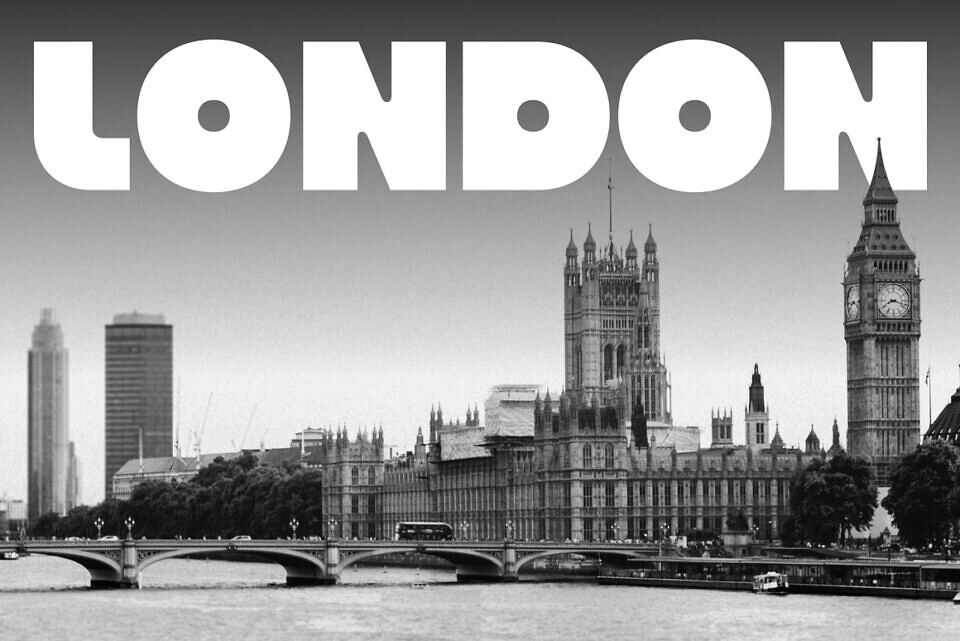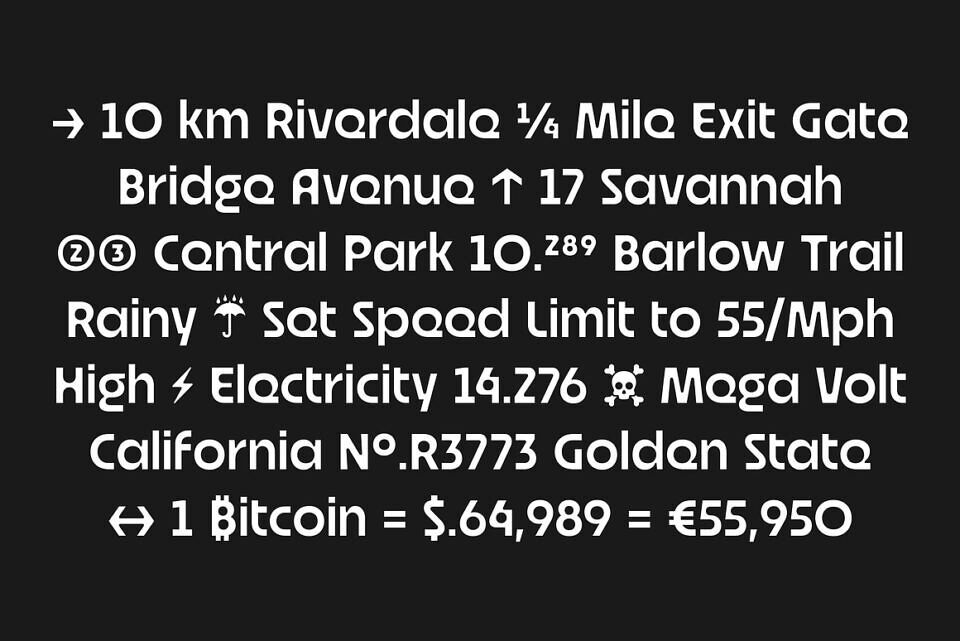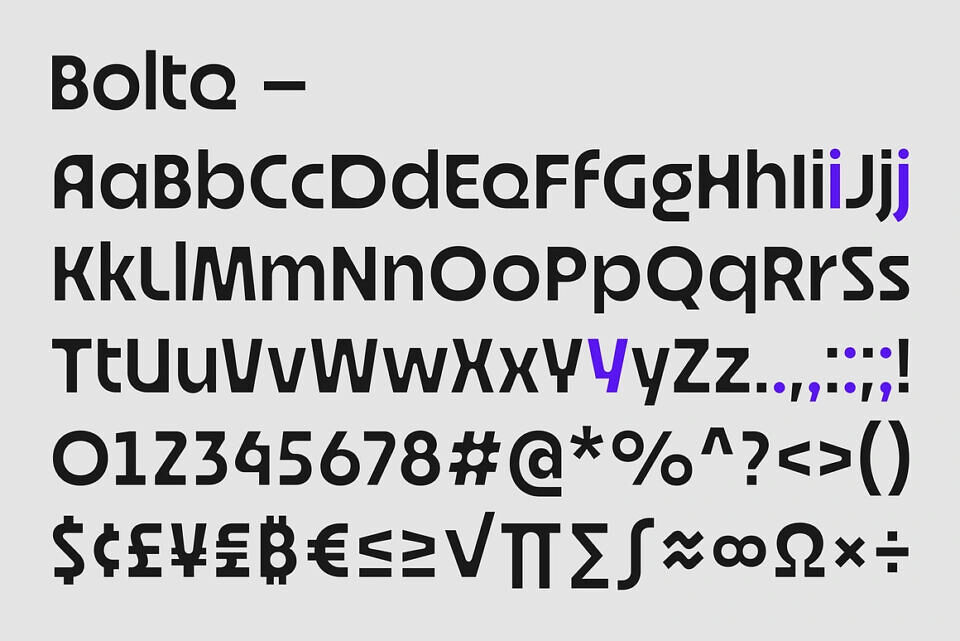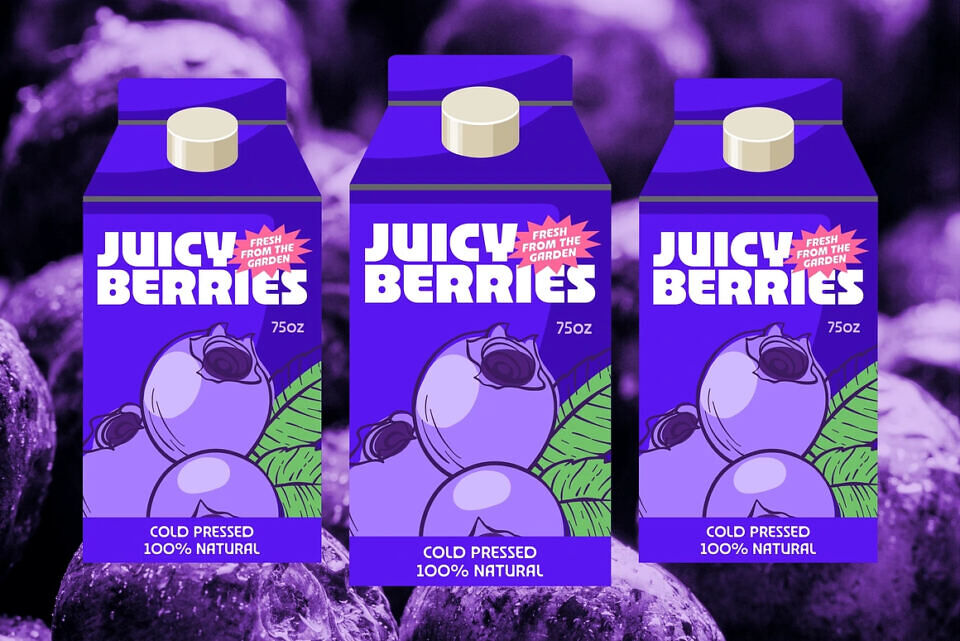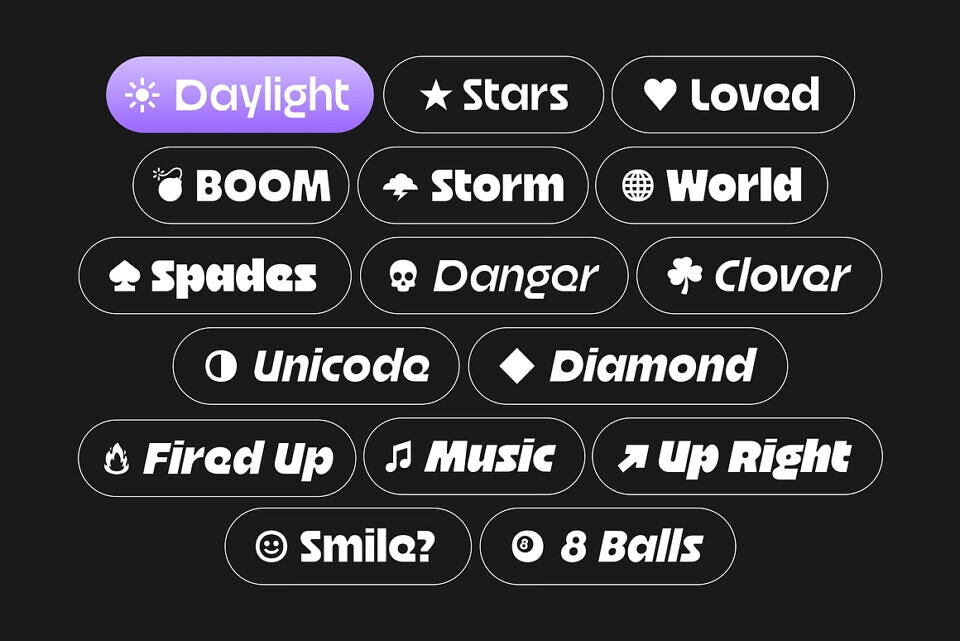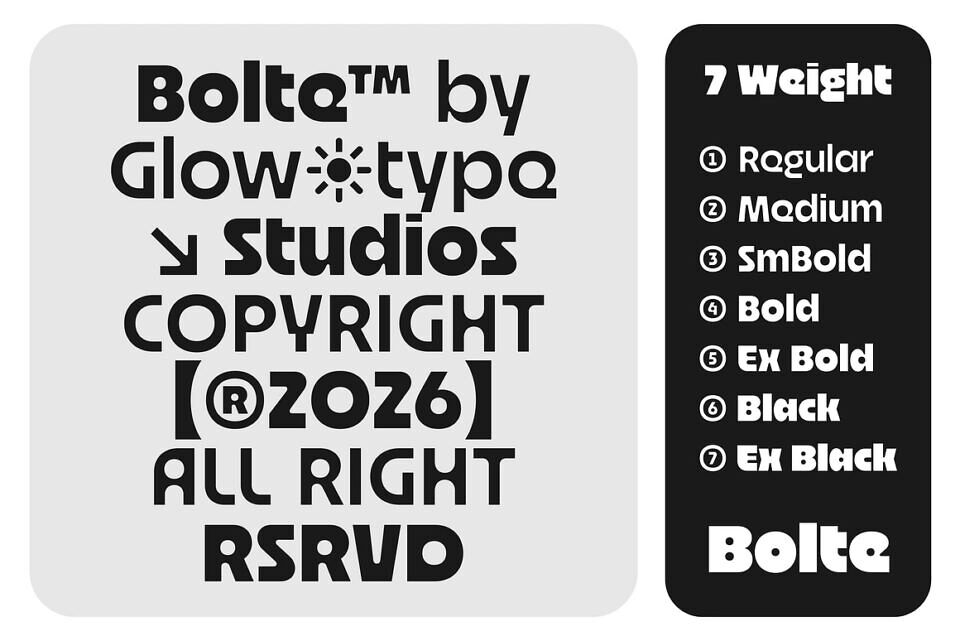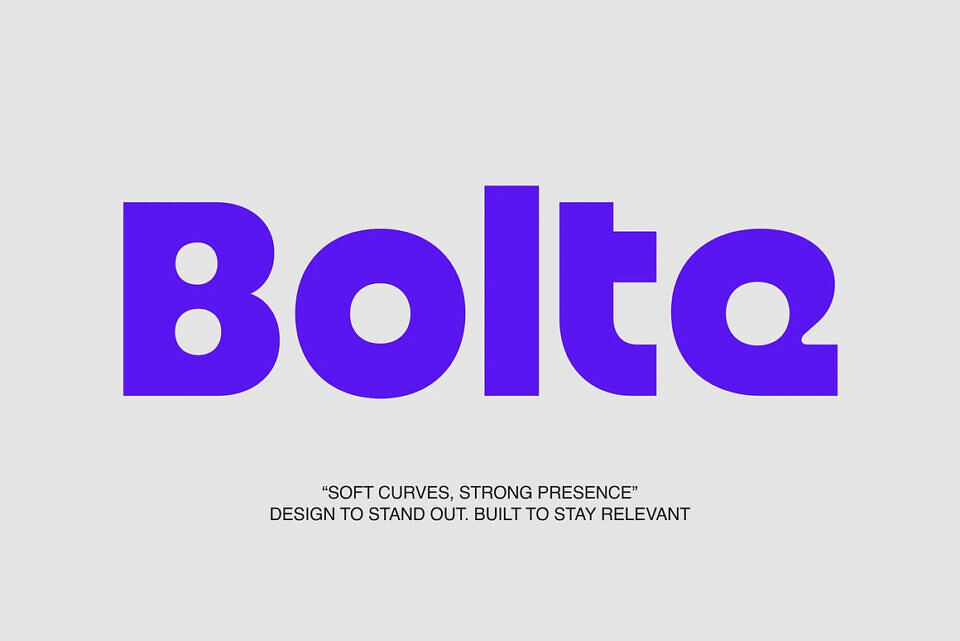
Bolte Font Family
Bolte is a rounded display sans built around weight, warmth, and clarity. Its generous proportions, soft terminals, and confident rhythm create a voice that feels approachable without sacrificing presence. Drawing inspiration from the practicality of grotesque sans-serifs and the friendliness of contemporary rounded forms, Bolte balances structure and personality in equal measure.
The design features broad curves, compact spacing, and a high visual density that gives every word a strong, unified silhouette. Rounded details soften the overall texture, creating a welcoming tone that works naturally across food packaging, consumer products, editorial headlines, visual identities, and digital experiences.